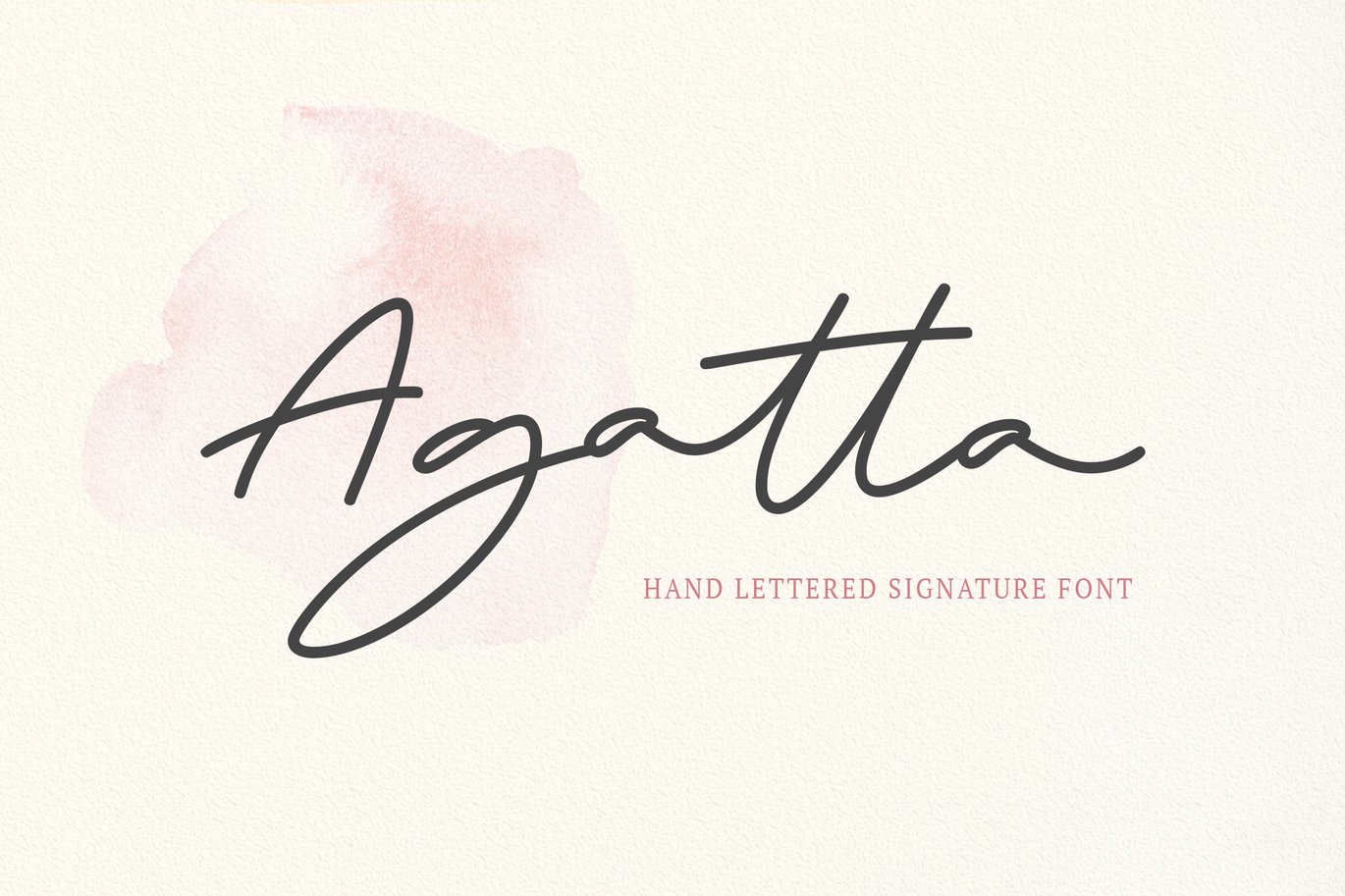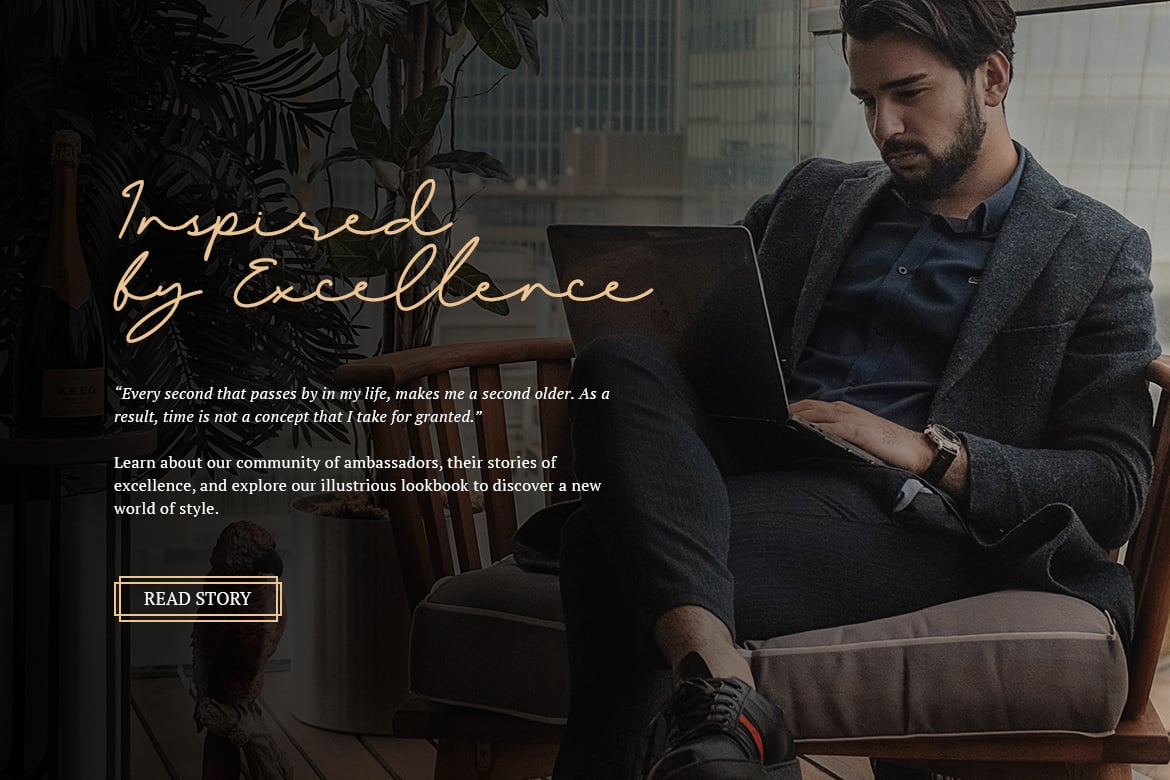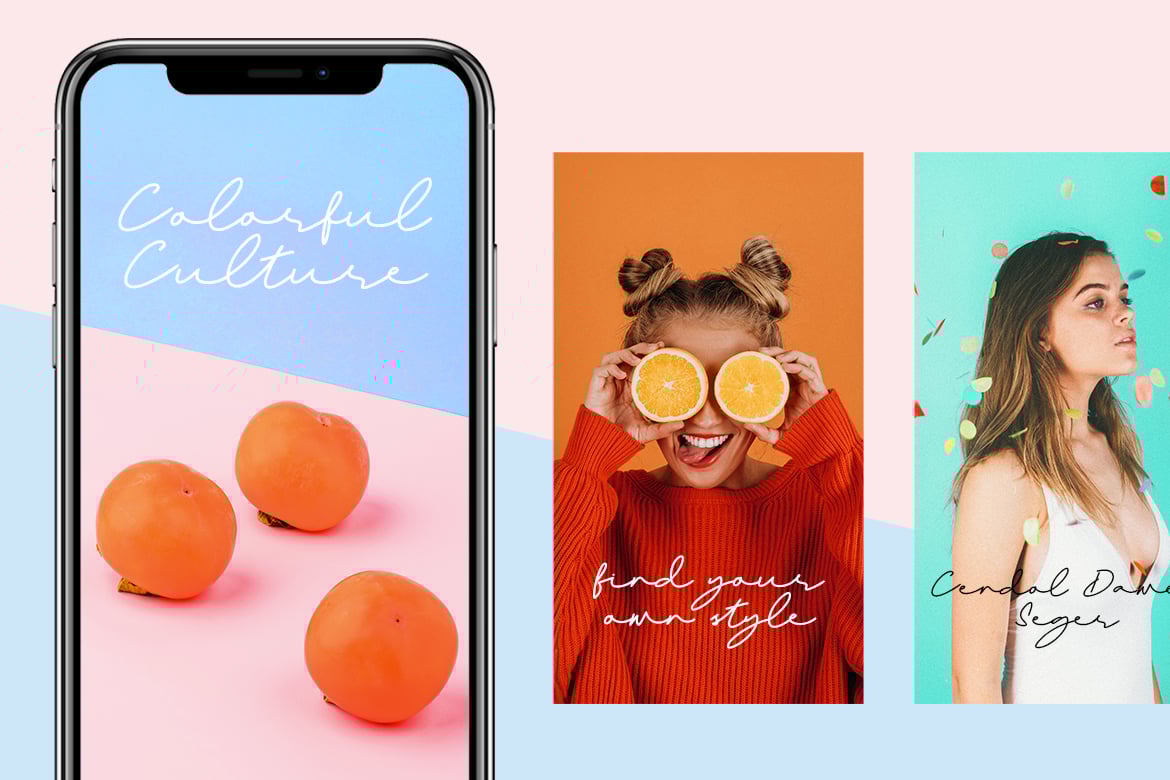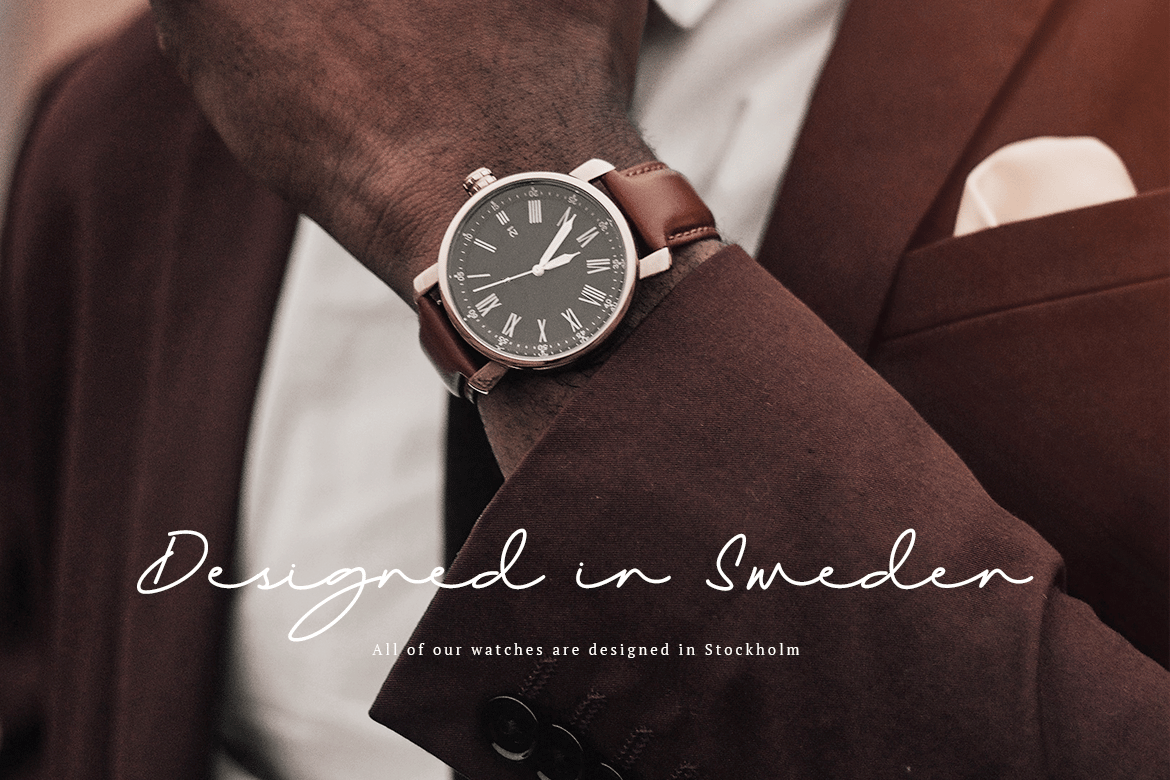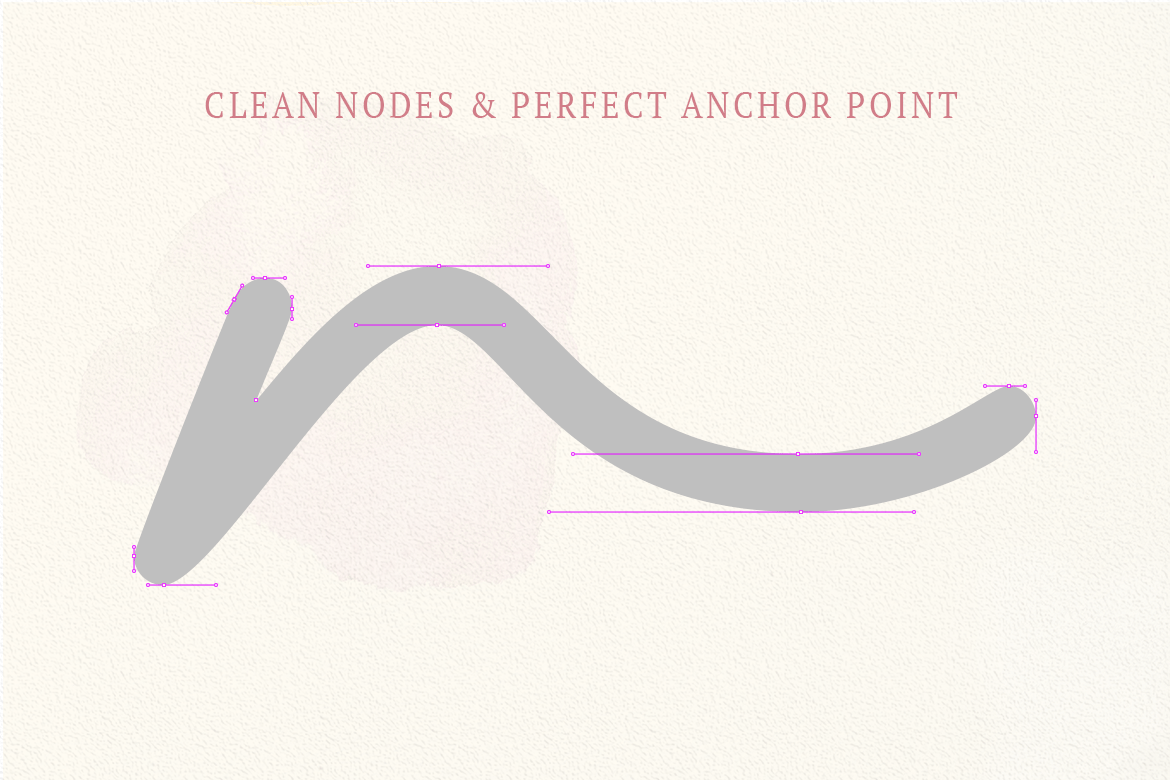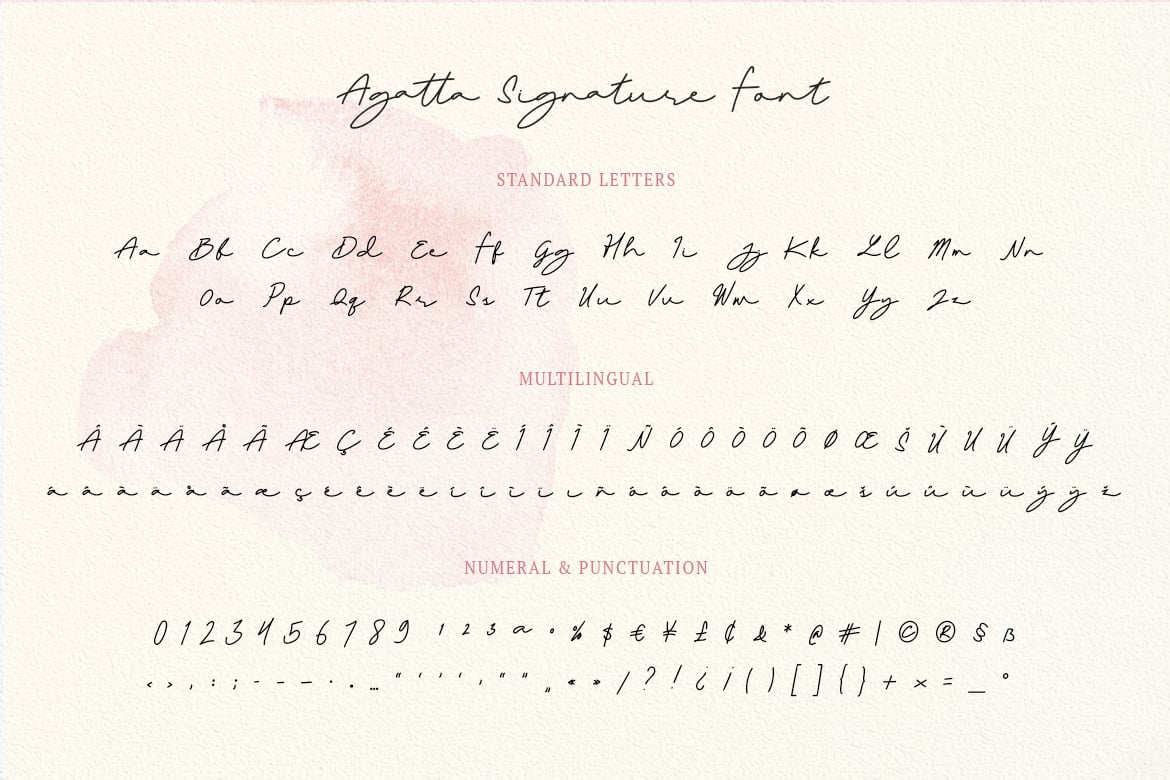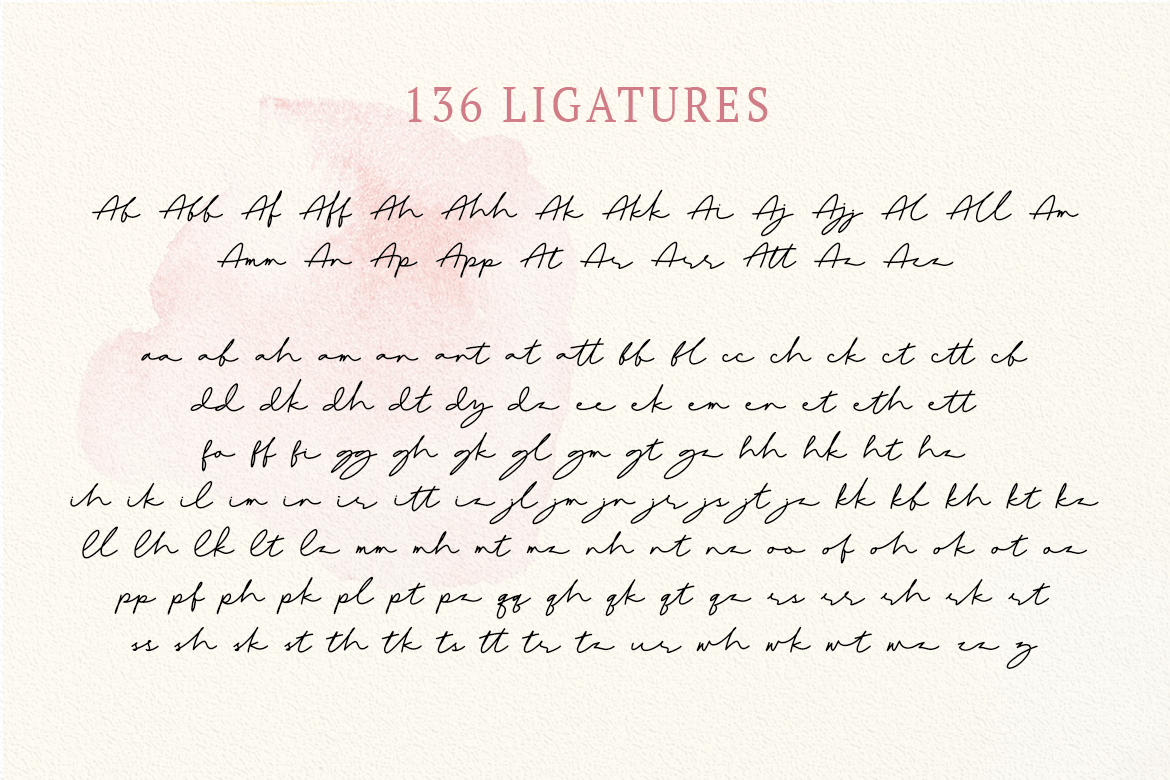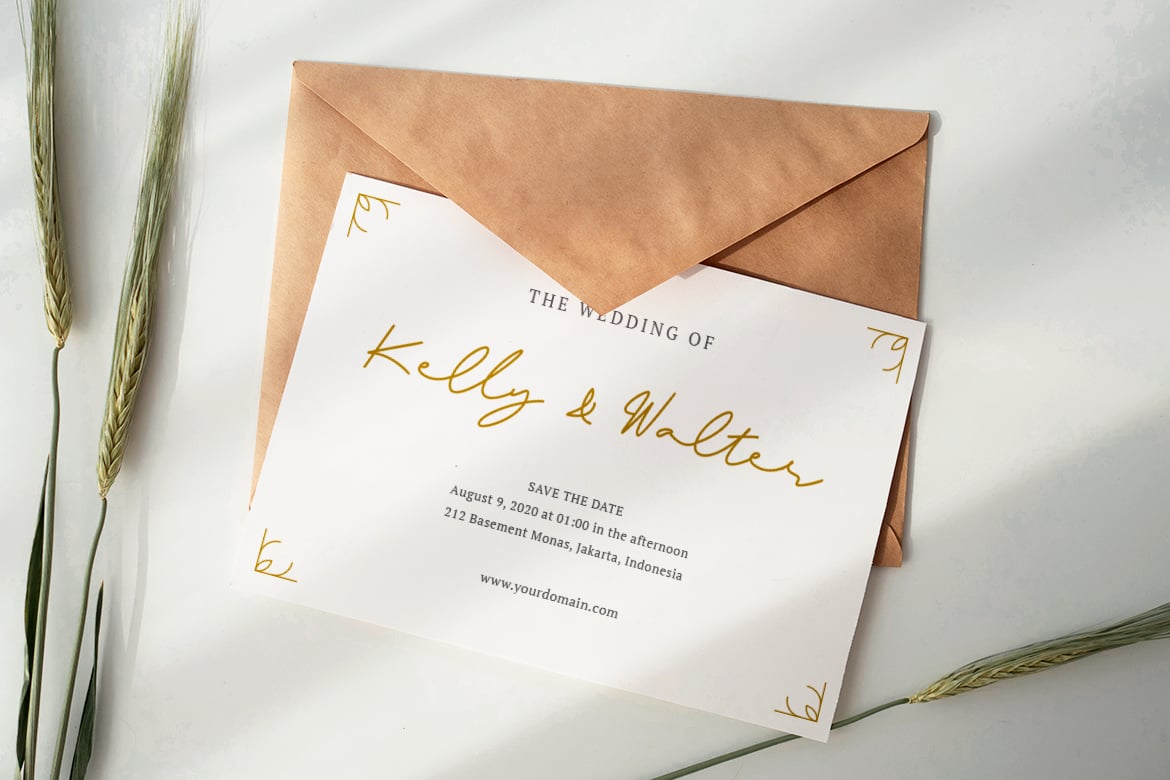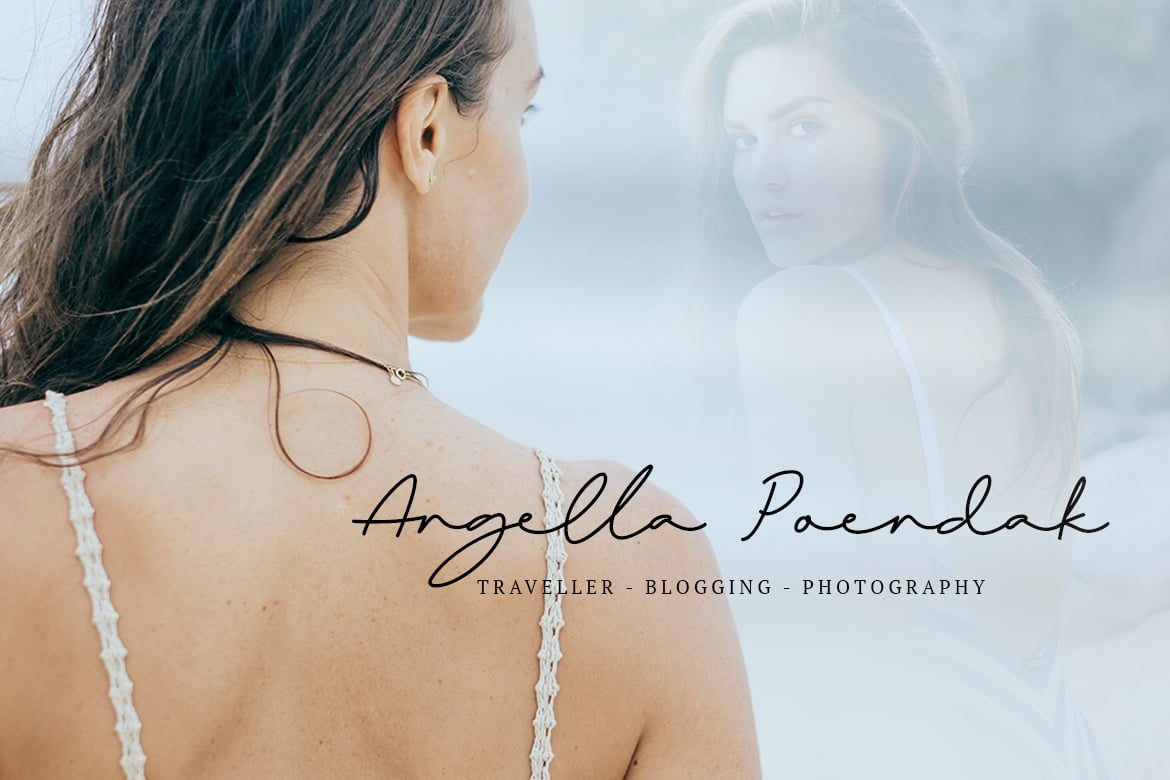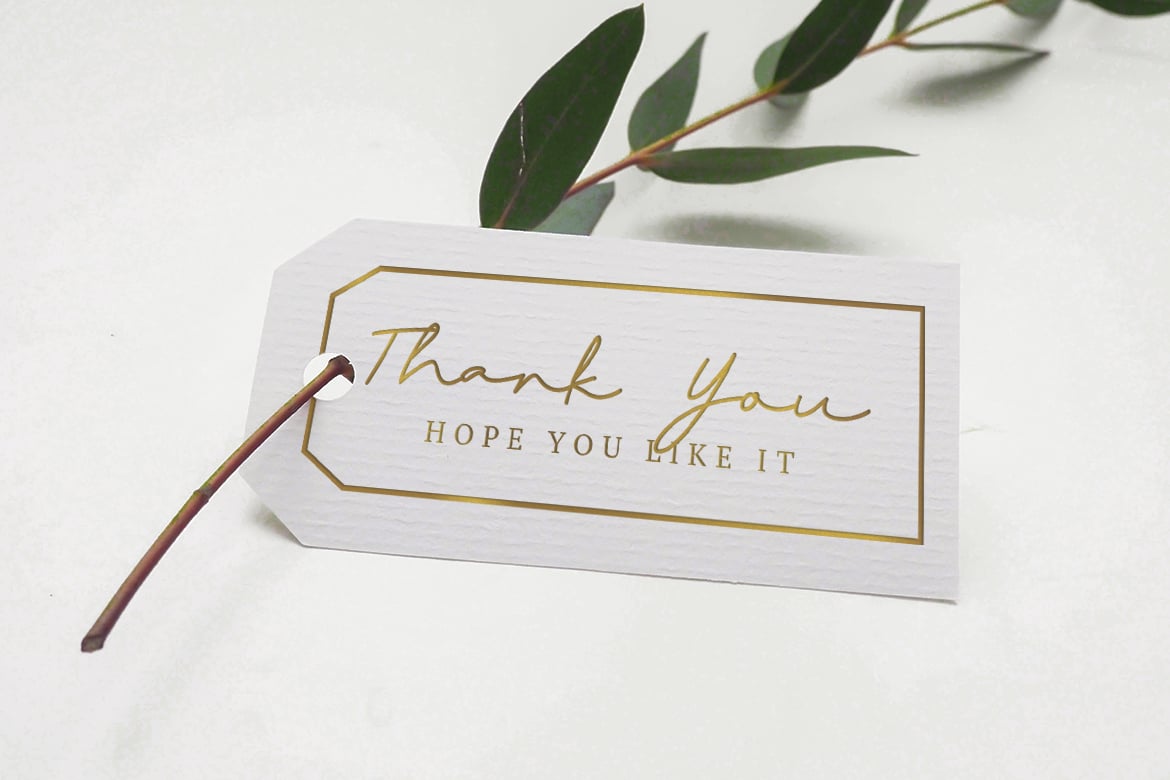
Signature Font
Agatta is a signature style font with the vibe of real hand lettering. It is perfect for luxury brand, beauty brand, fashion, artist, blogging, social media, wedding invites, cards and more. Agatta comes with clean nodes and perfect anchor points that makes all glyphs curves smoother.
Agatta Font includes full set of gorgeous uppercase and lowercase Cyrillic and English letters, multilingual symbols, numerals, punctuation and ligatures.
To keep maximum real hand lettered effect, there were created 136 ligatures (you can see them among preview pictures). By using these ligatures, you can give realistic handlettered style, escaping font “pattern” effect. Agatta font contains following ligatures:
list ligature
Features of Agatta Typeface;
- Tons of glyphs (332 total glyphs)
- Tons of ligatures (136 total ligatures)
- Clean Nodes, we cuts down every unnecessary node